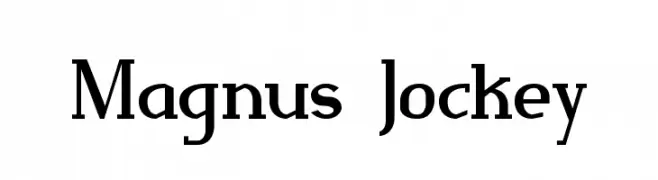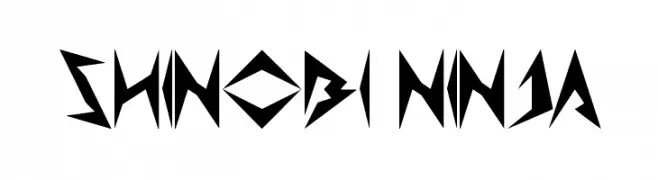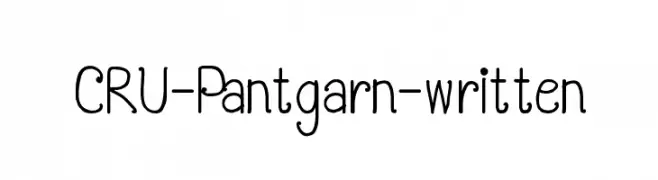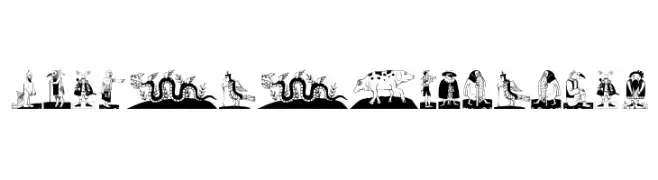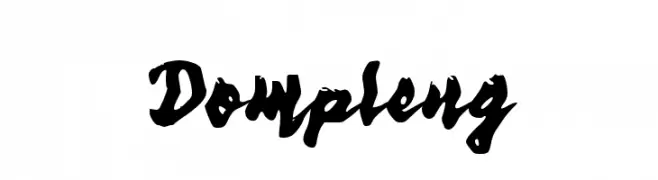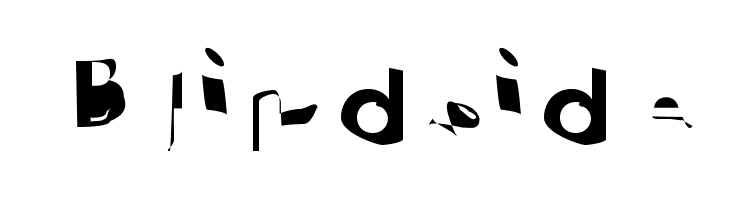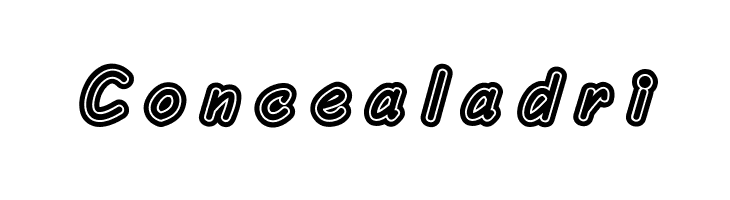
A bold serif font with strong strokes and a classic-modern appeal.
A bold, angular font with sharp, geometric shapes and a dynamic style.
A playful and whimsical font with rounded, consistent strokes and a friendly appearance.
A decorative font combining classic elegance with modern flair.
Ornate, illustrative font with mythological figures as glyphs.
A decorative and abstract font with geometric and directional motifs.
A bold, expressive font with a hand-painted, brush-like style.
A playful script font with decorative cat illustrations in uppercase letters.
A bold, italicized font with a futuristic and dynamic style.